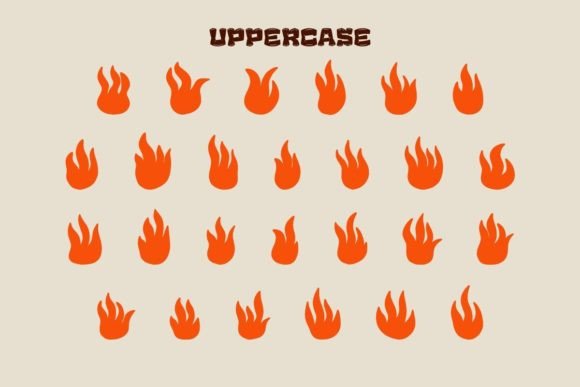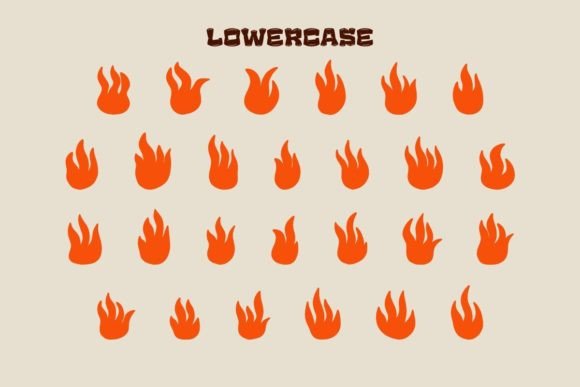
Introduction to Fire Flames Font
Remember the thrill of brainstorming a creative project, surrounded by endless possibilities and ideas? You’re stuck on a design that needs that extra spark, and suddenly, the perfect element pops into your mind – a fiery flame that sets the tone for an electrifying visual experience.
That’s where the Fire Flames Font comes in – a comprehensive collection of enchanting fire symbols and shapes that can elevate your designs to new heights. As a valuable resource for designers, this font is perfect for adding a touch of magic to your projects. Whether you’re working on a logo, invitation, or digital art, the Fire Flames Font’s high-quality elements will add a level of sophistication and charm that’s hard to replicate with generic design resources.
Key Features of Fire Flames Font
- High-quality design resource for creative projects, perfect for adding a touch of flames to your design.
- Features a transparent background, allowing for seamless integration with any design or background.
- High-resolution design, suitable for print and digital use, with a resolution of 300 DPI or higher.
- Unique and stylish design, ideal for adding a creative touch to logos, branding, and other design elements.
Honest Review: Fire Flames Font
As a designer, I’m always on the lookout for high-quality design resources to elevate my creative projects. The Fire Flames Font is one such resource that caught my attention. Let’s dive into what works well and where it falls short.
What works well: ✨ The Fire Flames Font has a unique and eye-catching design that’s perfect for projects that need a bold and fiery touch. The font is also highly customizable, allowing users to adjust the size, color, and even add special effects. Additionally, the font is available for free download, making it an excellent addition to any design arsenal.
What could be improved: ⚠️ One limitation of the Fire Flames Font is its lack of transparency. While this may not be a deal-breaker for some users, it can be a drawback for those who want to use the font on a transparent background. Another limitation is the font’s limited character set, which may not be suitable for longer text-based projects.
Overall impression: The Fire Flames Font is a great addition to any designer’s toolkit, but it’s essential to be aware of its limitations. With its unique design, high-quality graphics, and free download option, it’s an excellent resource for creative projects that need a bold and fiery touch.
- Unique and eye-catching design
- Limited character set
- Lack of transparency
Common Use Cases and Tips
Fire Flames Font is ideal for creative projects that require a bold and eye-catching design element. Some common use cases include:
1. Social media graphics and advertisements.
2. Event invitations and promotional materials.
3. Branding and logo design.
Remember to experiment with different font sizes, colors, and effects to get the most out of Fire Flames Font and achieve the desired look for your project